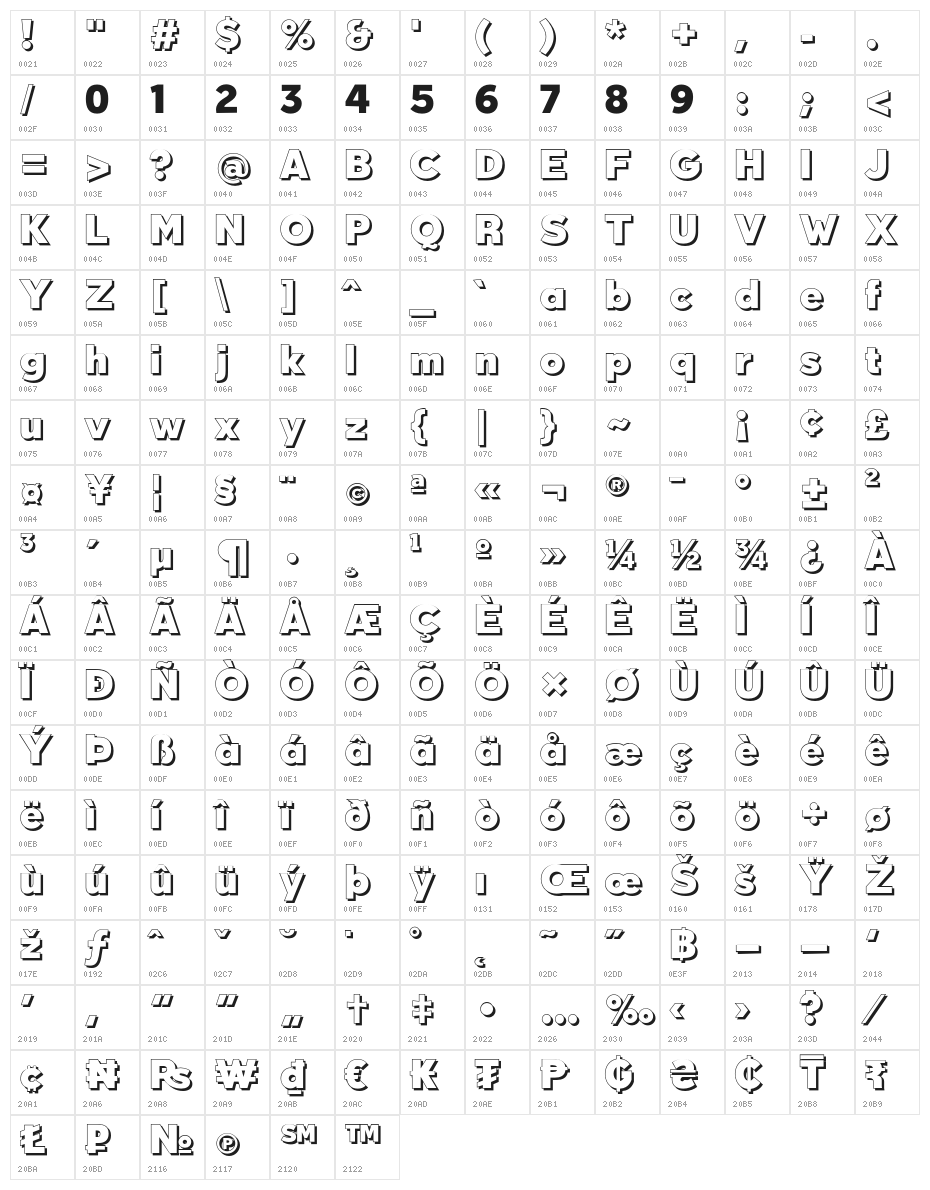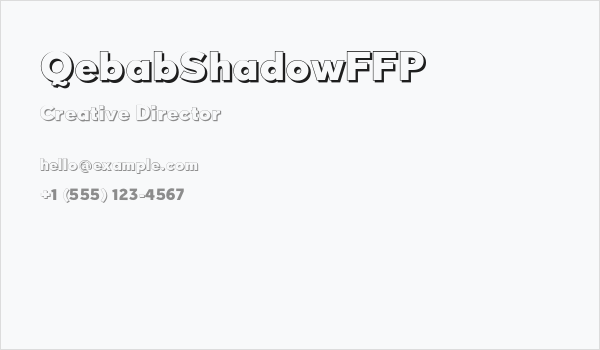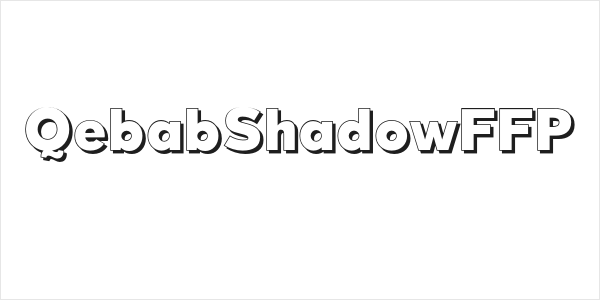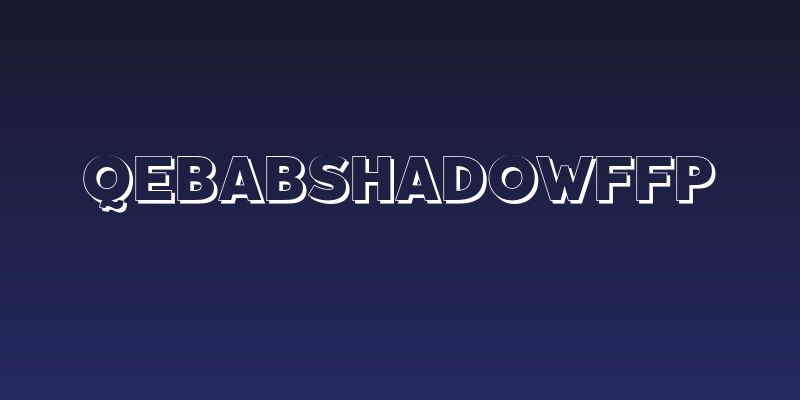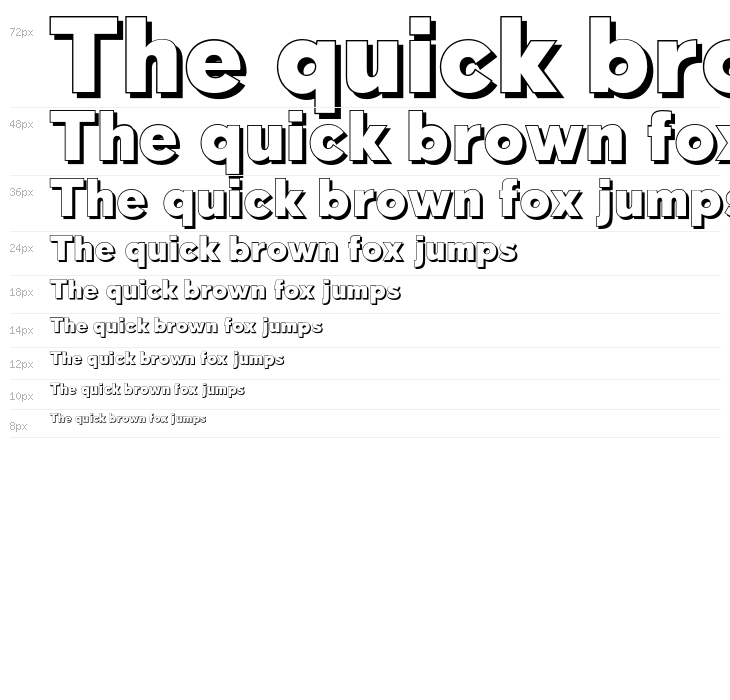
QebabShadowFFP Font
QebabShadowFFP Description
This font features a bold and impactful design with a distinct shadow effect that gives it a three-dimensional appearance. The uppercase and lowercase letters are well-balanced, maintaining a consistent thickness throughout. The numerals are equally bold, ensuring they stand out in any context. Special characters are included, each designed to complement the overall aesthetic. The font's style is modern and eye-catching, making it suitable for attention-grabbing headlines and logos. Its strong presence is ideal for projects that require a bold statement.
| Proposed Projects | Ideal for branding, posters, headlines, and any design needing a strong visual impact. |